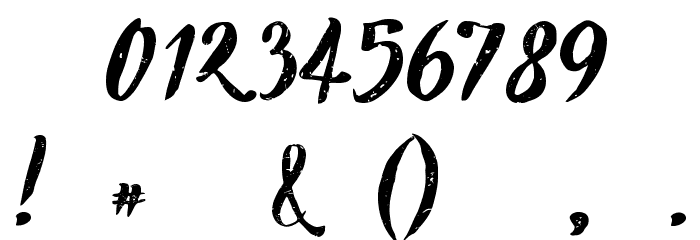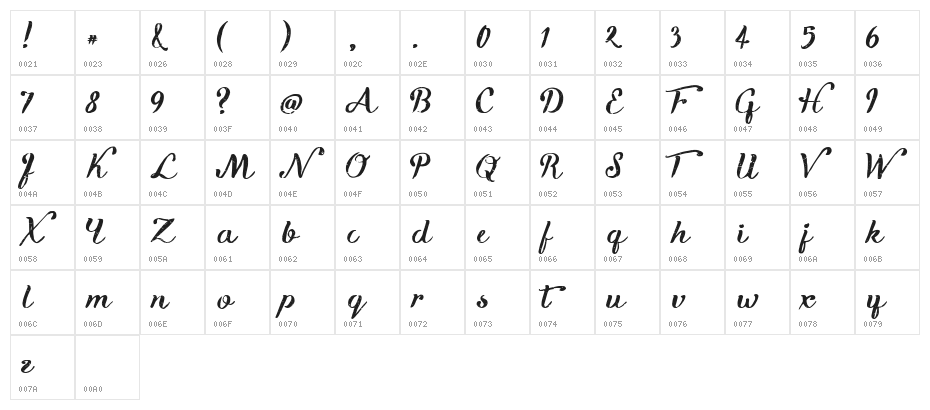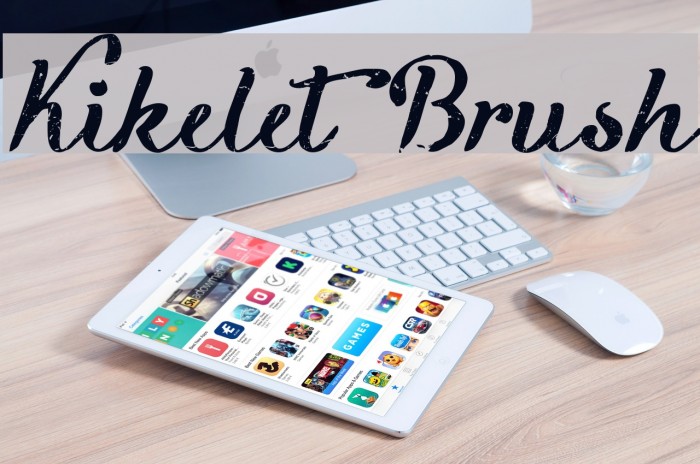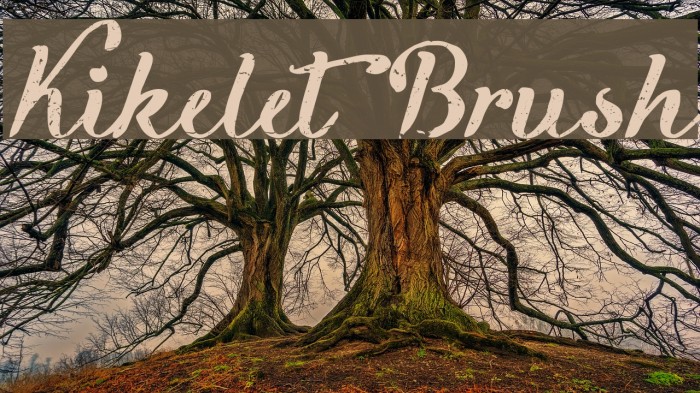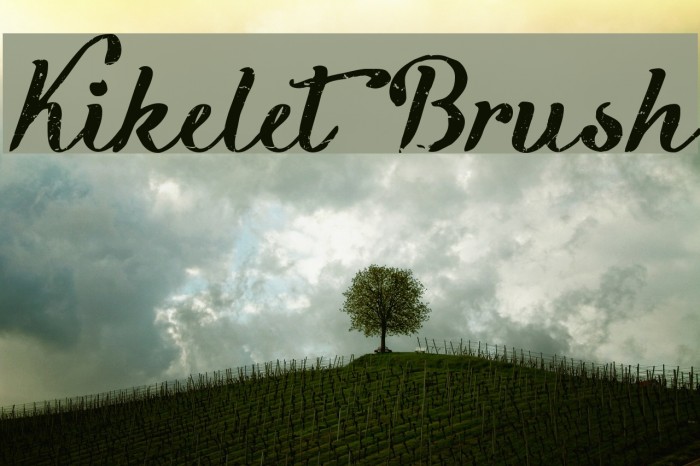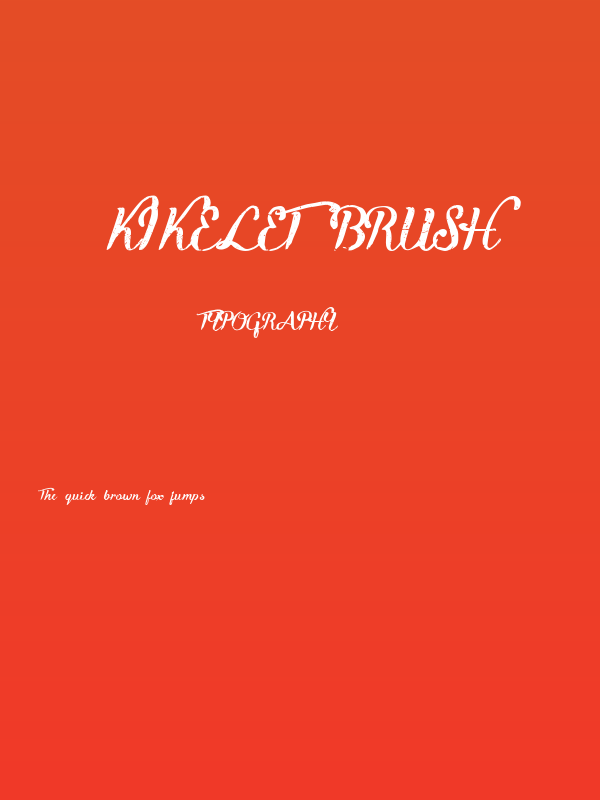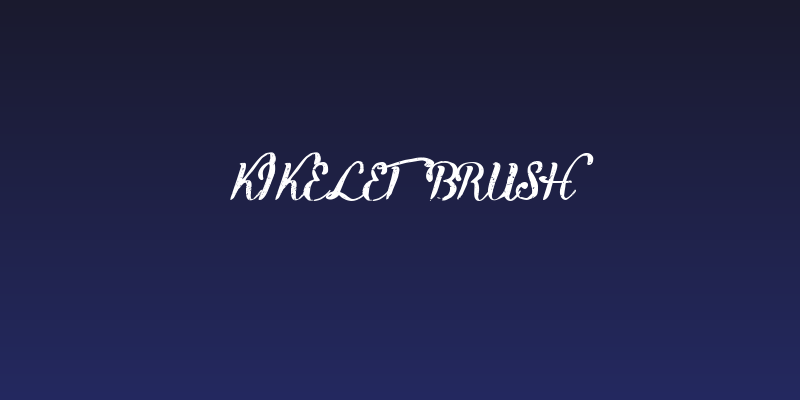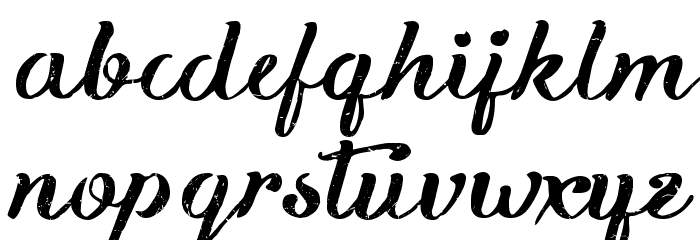
Kikelet Brush Font
Kikelet Brush Description
This font features a dynamic and expressive brush style, characterized by its fluid and organic strokes. The letters exhibit a hand-painted appearance, with varying thickness that adds a sense of movement and energy. The uppercase and lowercase letters maintain a cohesive style, with the uppercase being slightly more pronounced. Numbers and special characters follow the same artistic brush theme, ensuring consistency across all elements. The texture within the strokes gives it a rustic and artistic flair, making it ideal for creative and informal designs.
| Proposed Projects | Ideal for artistic projects, branding, posters, invitations, and any design requiring a creative and informal touch. |